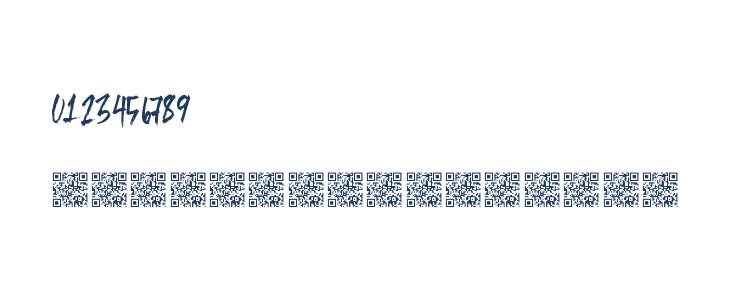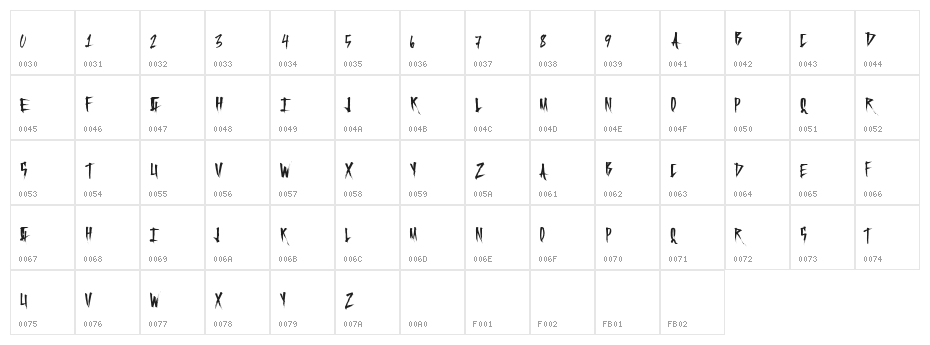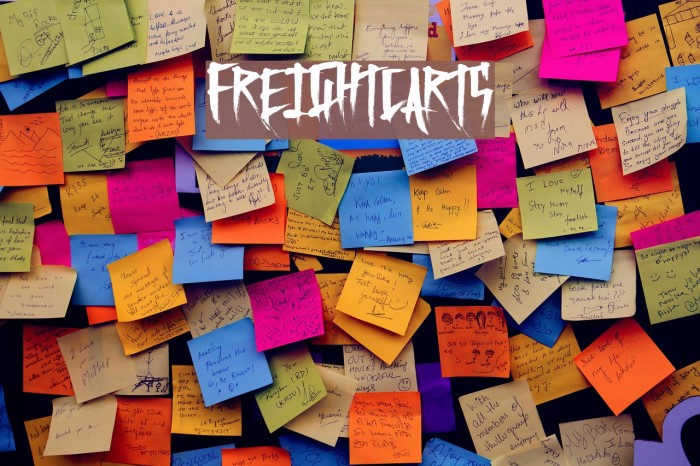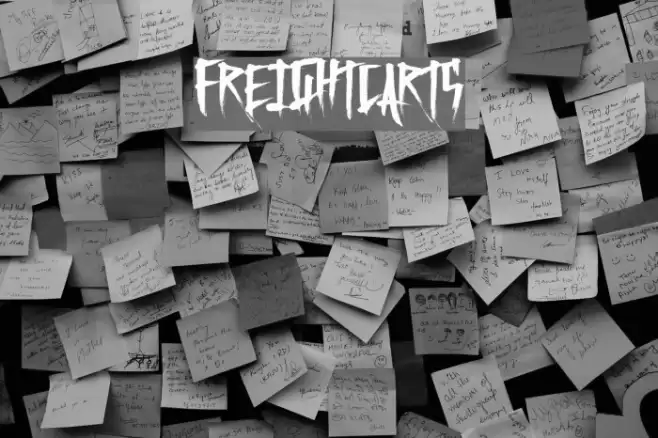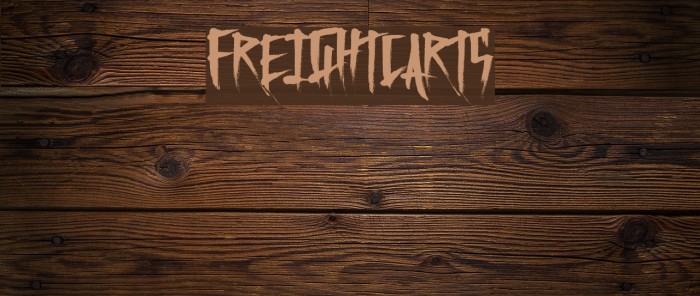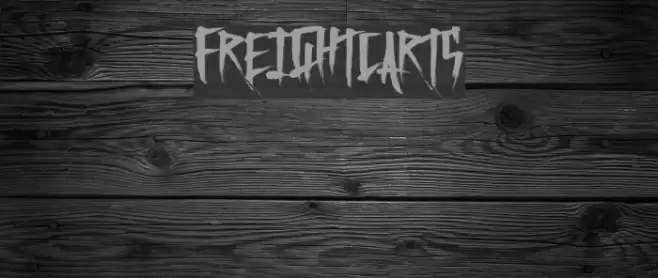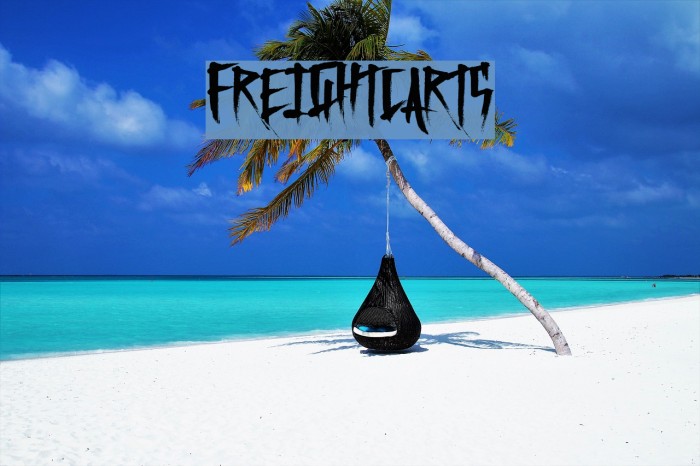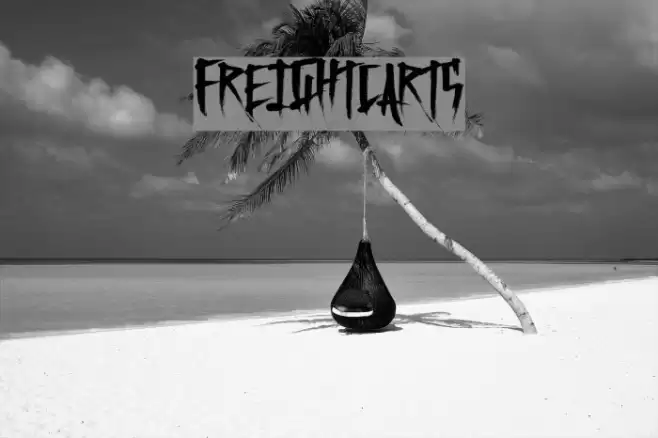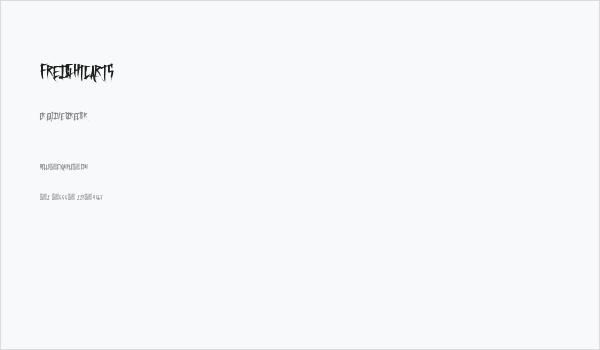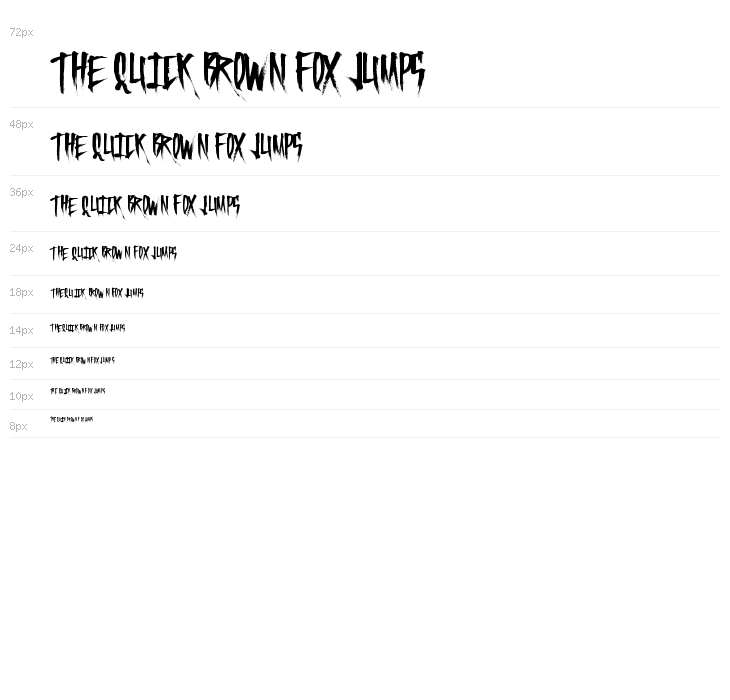
FreightCarts Font
FreightCarts Description
This font features a bold and edgy design, characterized by sharp, jagged edges and a graffiti-like appearance. The letters are dynamic and energetic, with a sense of movement and intensity. The uppercase and lowercase letters maintain a consistent style, with exaggerated strokes and a slightly chaotic feel. The numbers follow the same aesthetic, ensuring a cohesive look across all characters. This font is perfect for projects that require a rebellious or urban vibe, making it ideal for streetwear branding, music album covers, or event posters.
| Overall Style | Modern, Urban |
| Proposed Projects | Ideal for streetwear branding, music album covers, event posters, and urban-themed designs. |